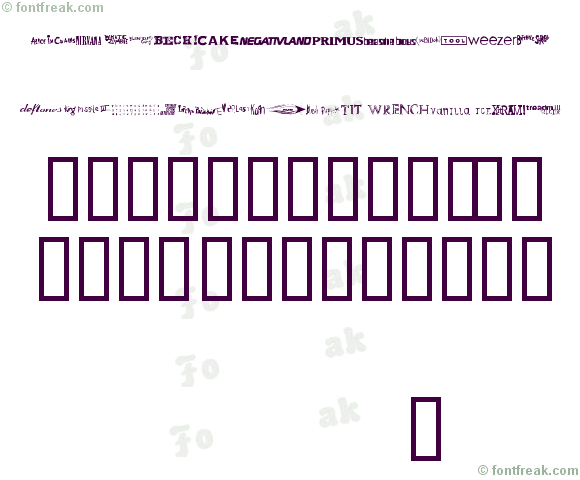
Bandnames
The Bandnames font by Spork Thug Typography is a striking display typeface that captures the essence of rock and roll aesthetics. This font features bold, exaggerated letterforms with a unique blend of sharp angles and rounded edges, creating a dynamic and eye-catching visual appeal. The stroke weight is thick and confident, offering a strong presence while maintaining a playful vibe. The overall spacing is well-balanced, allowing for easy readability, which is essential in various design contexts. Its decorative elements evoke a sense of nostalgia, reminiscent of classic band logos and album covers.
The Bandnames font is particularly versatile and can be utilized in a variety of creative projects. It excels in designing concert posters, where its bold appearance can draw attention and convey energy. Additionally, it is well-suited for merchandise such as t-shirts and album covers, where a unique typographic style is crucial for branding. Small business owners in the music industry will find it effective for promotional materials, while content creators can use it to add flair to social media graphics.
This font targets graphic designers, musicians, and small business owners who seek to make a statement with their visual branding. Its distinct style resonates with those looking to capture an edgy, artistic vibe, appealing to a youthful and creative audience.
What sets the Bandnames font apart is its ability to blend fun and functionality. It stands out not only for its eye-catching design but also for its versatility across various applications. The Bandnames font free download offers designers an opportunity to elevate their projects with a typeface that embodies the spirit of music and creativity, making it a valuable addition to any design toolkit.